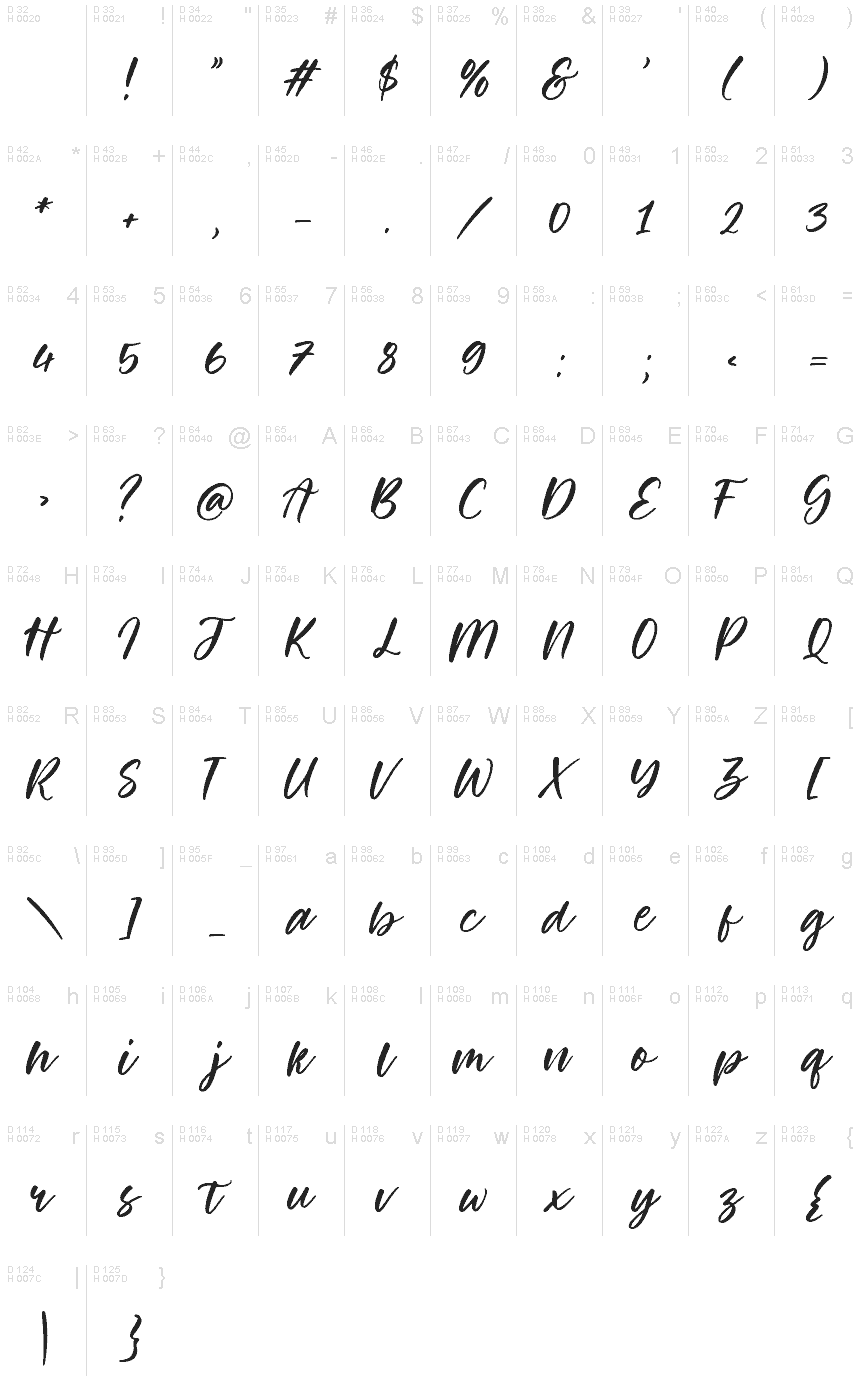
Orange Garden
Orange Garden font by Balpirick Studio is an expressive handwritten typeface that captures a sense of modern elegance. Each character flows with fluid motion and artistic flair, creating a cohesive visual appearance. The casual charm paired with the soft and friendly style gives each letter a distinctive charm.
Use this free handwritten font for posters, publication titles, covers, magazines headlines, blogs, captions in storyteller videos, greeting cards for any occasion, or stationery where elegance is key. Branding projects in various industries can take advantage of its unique style as well.